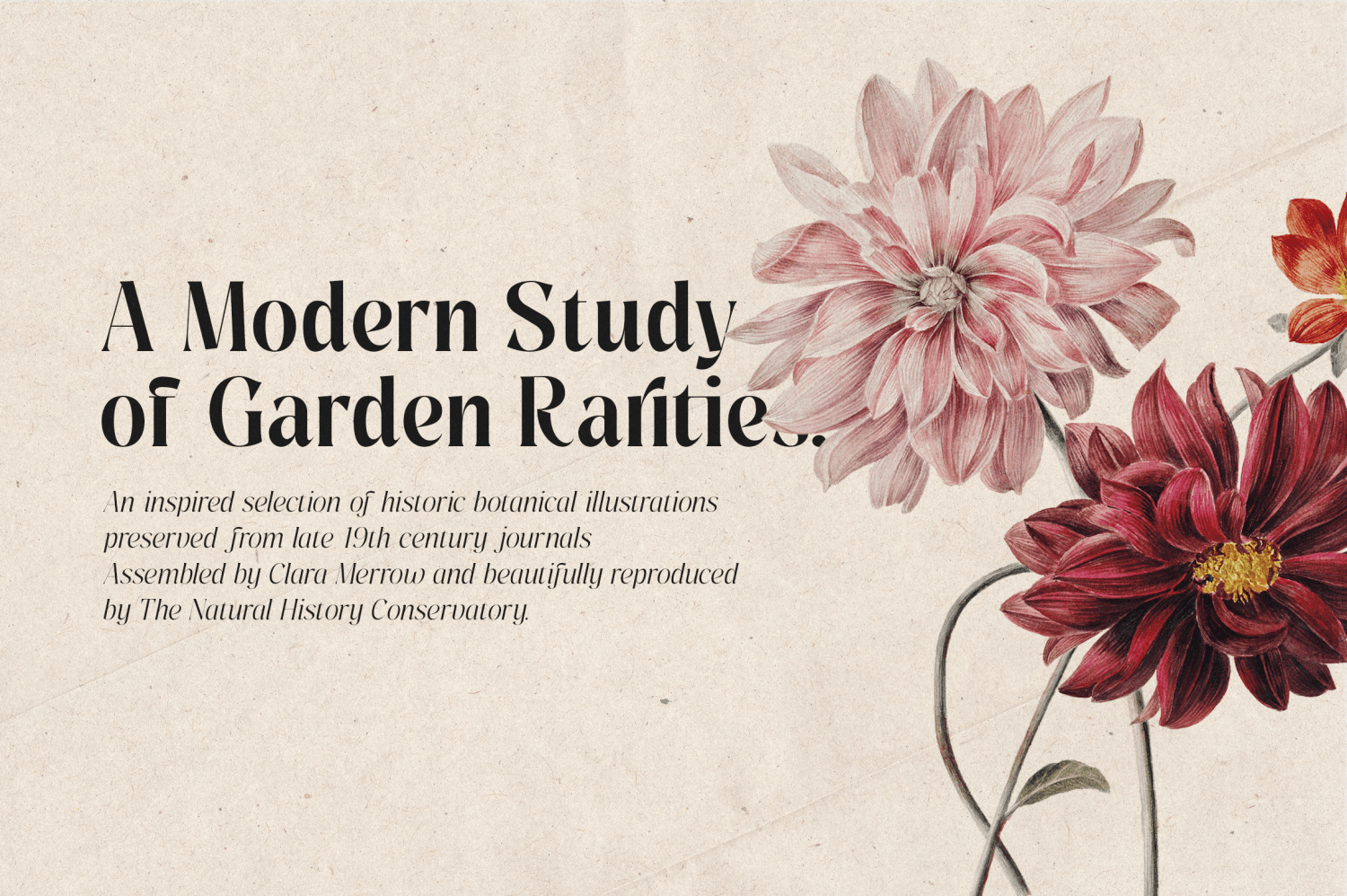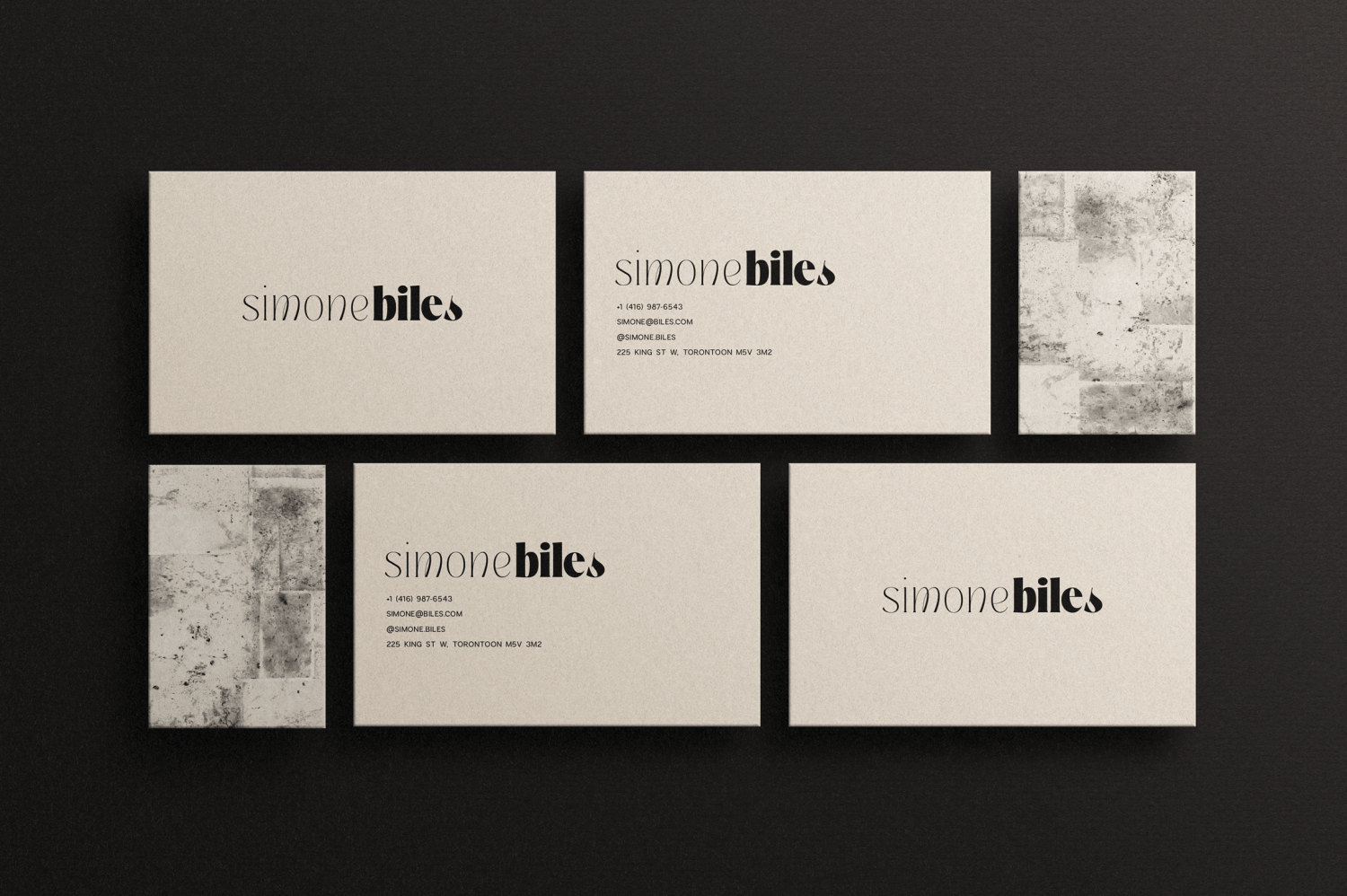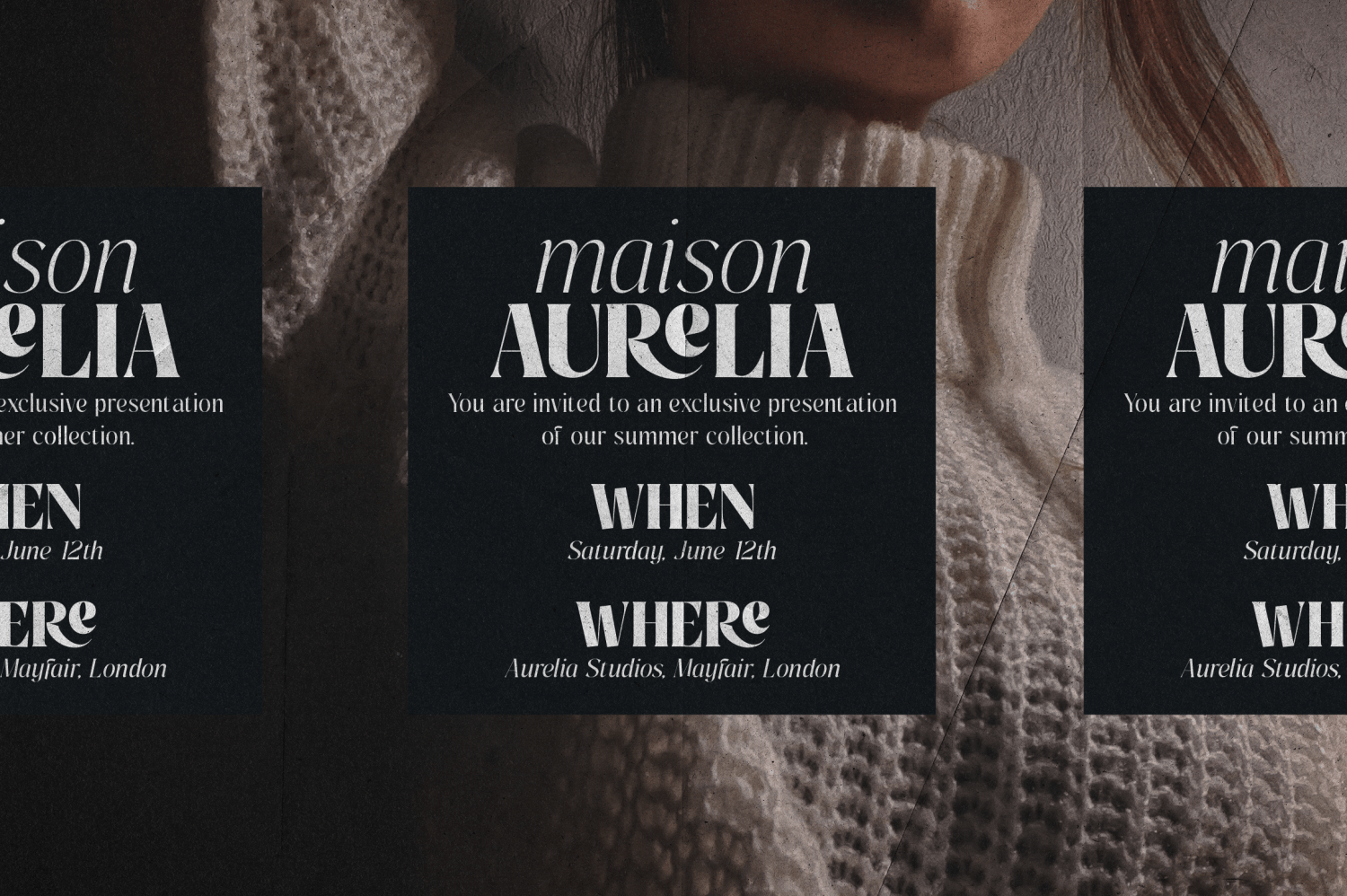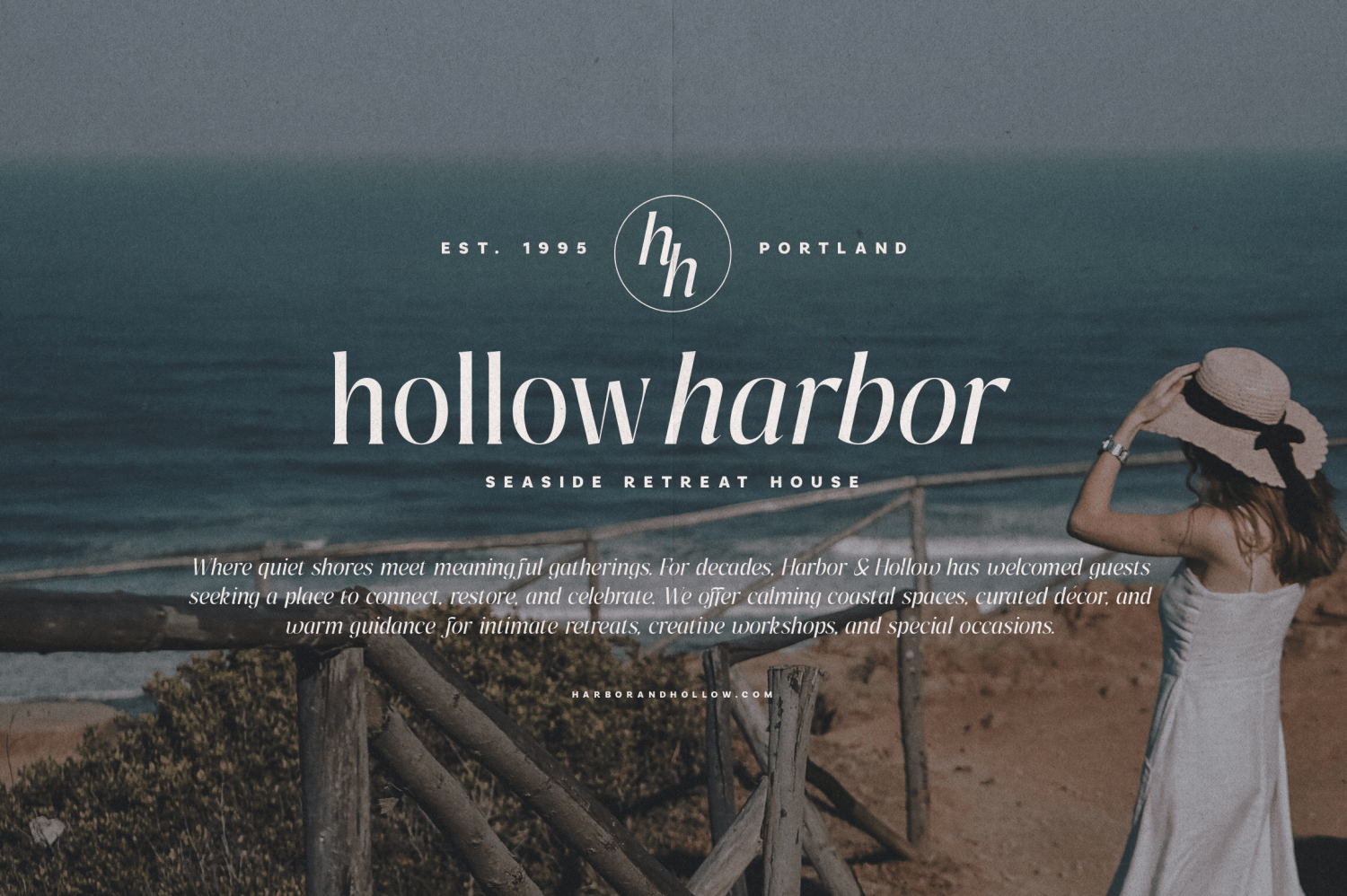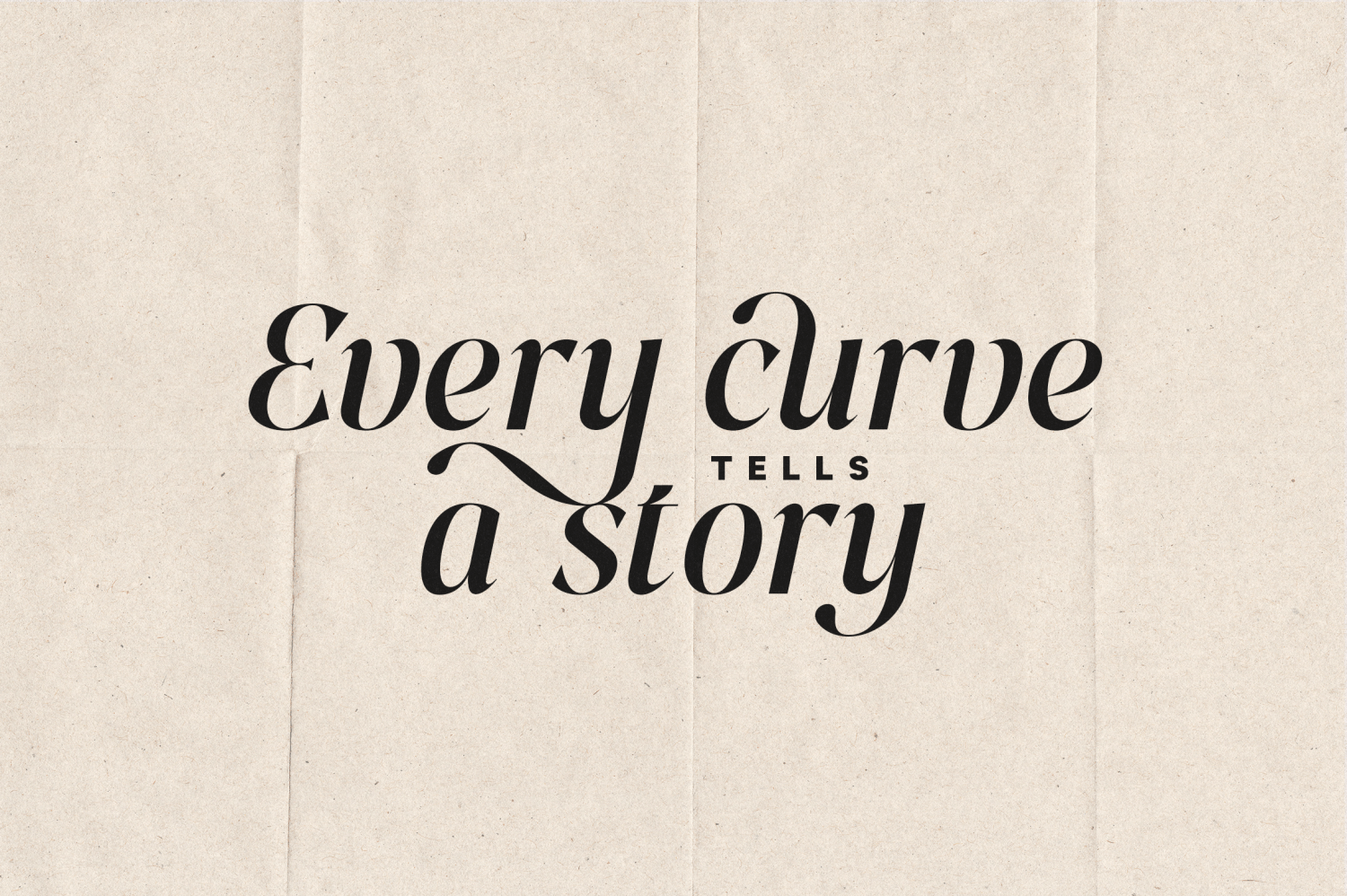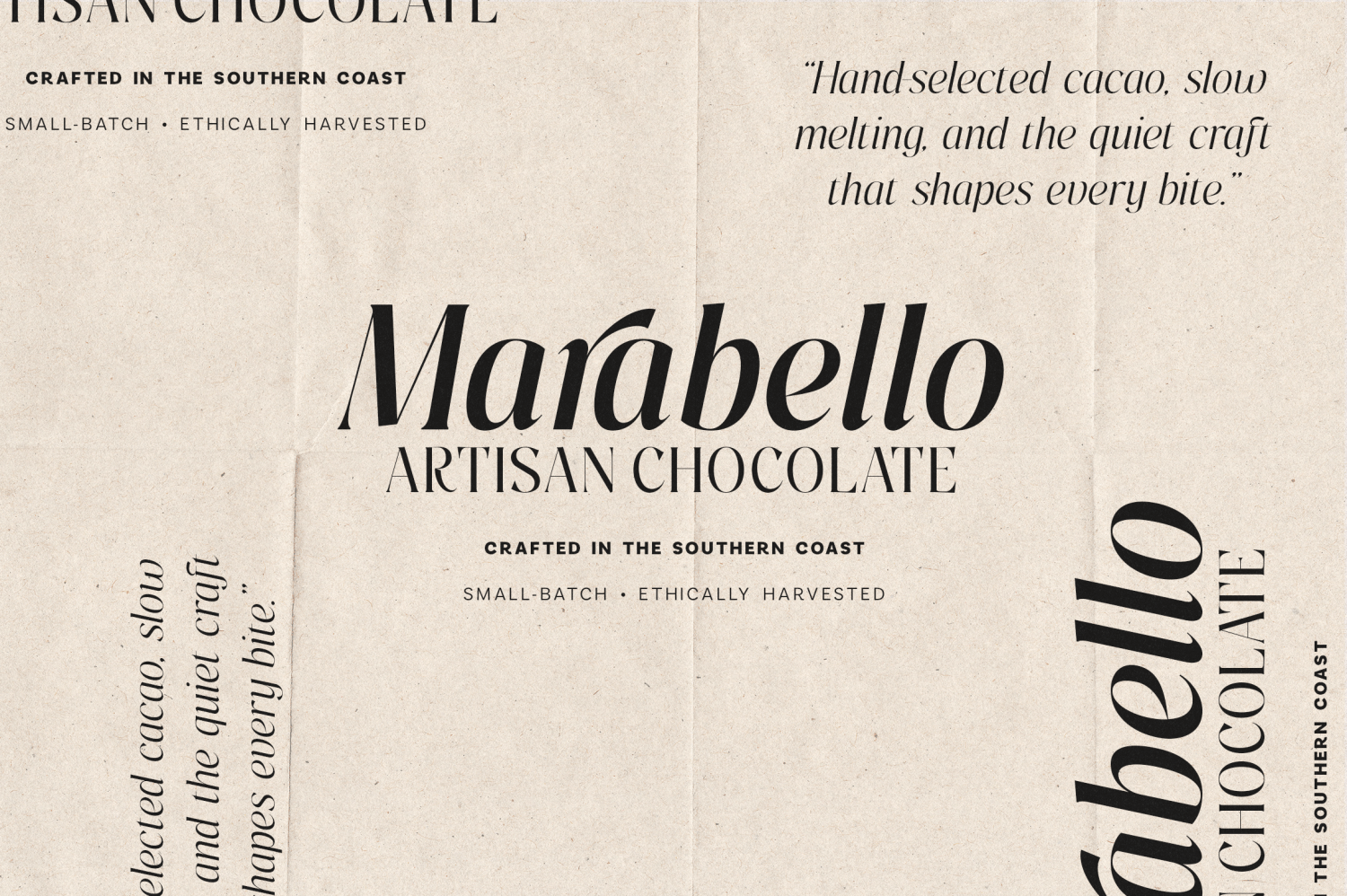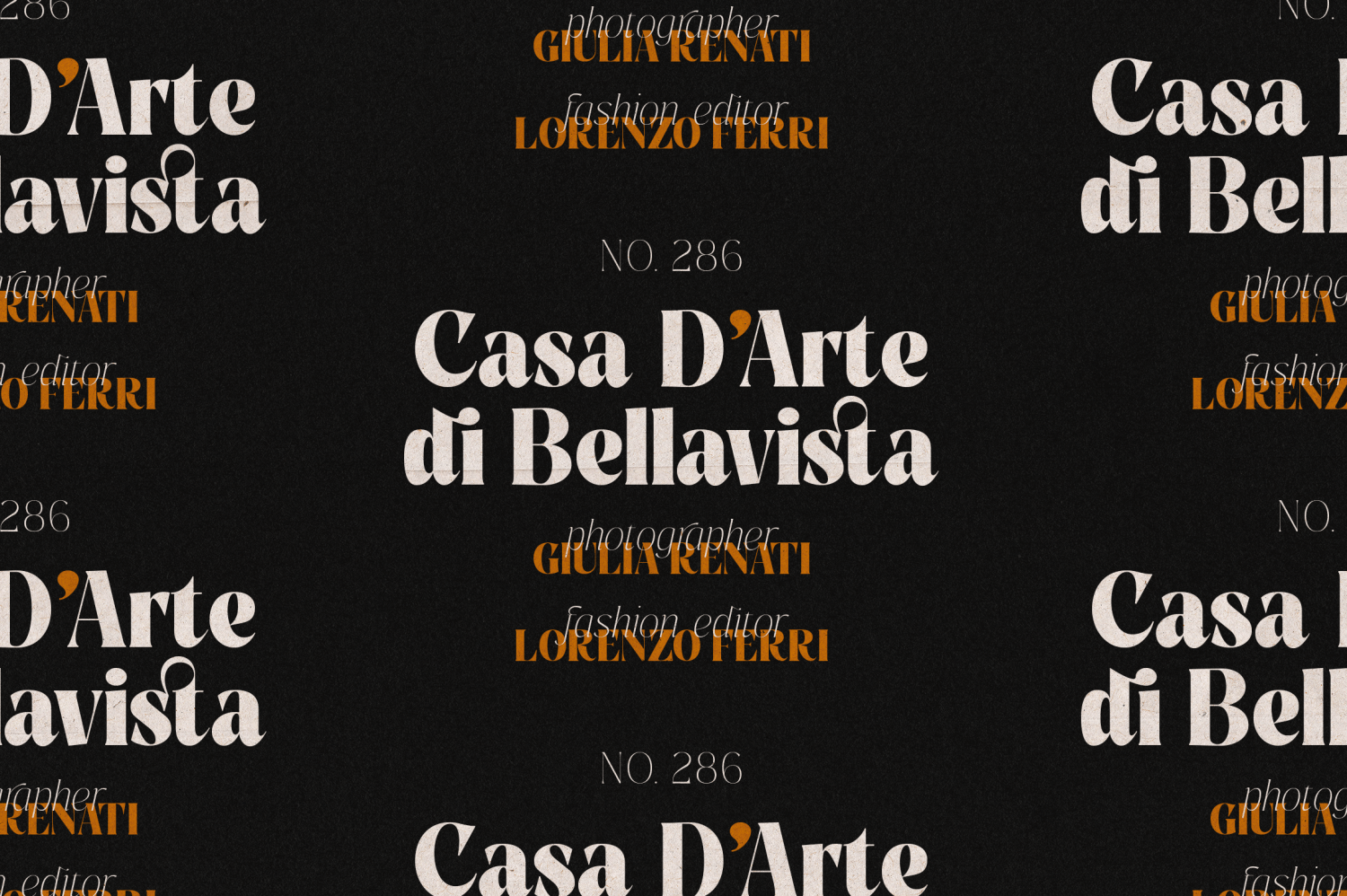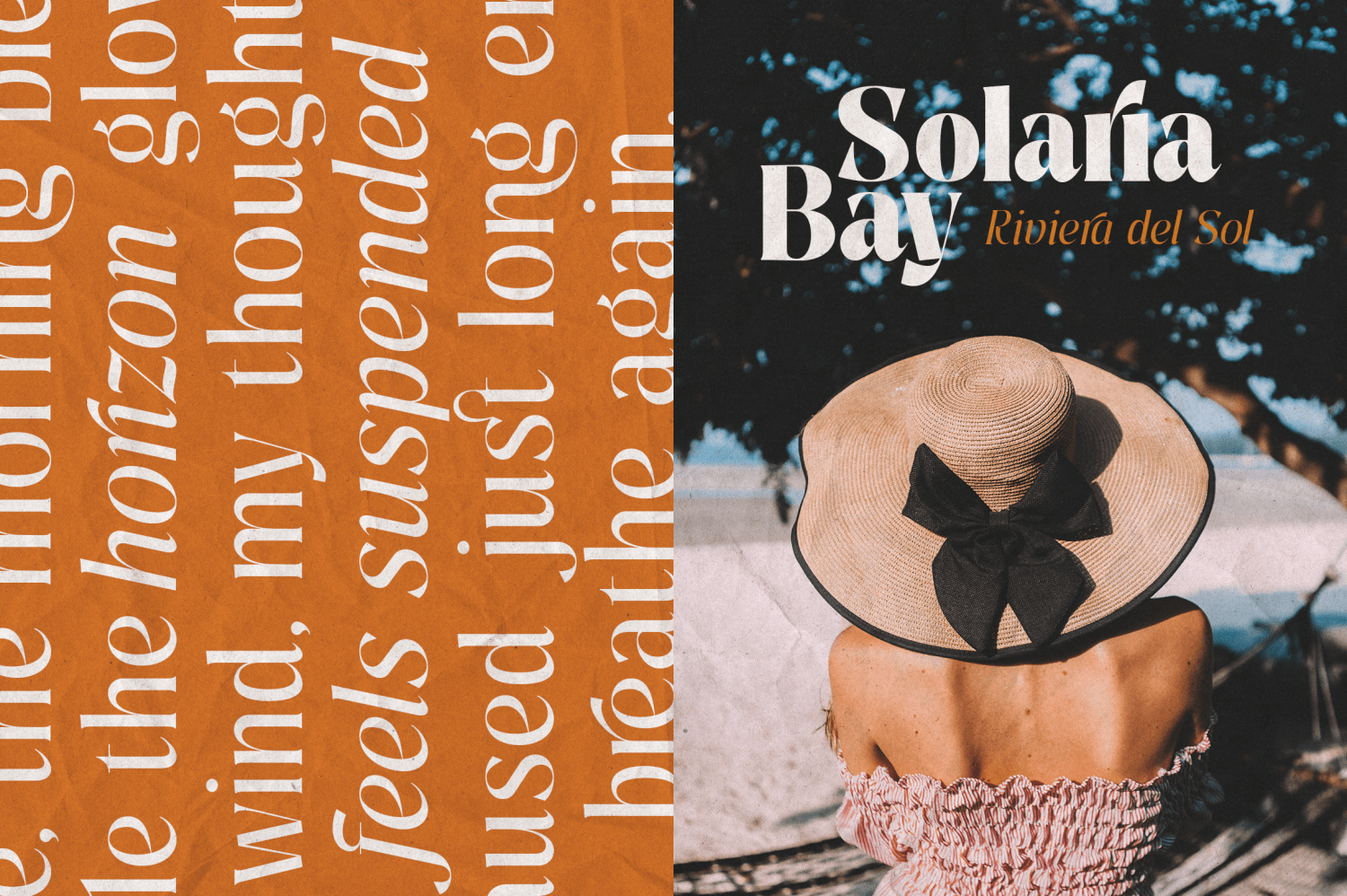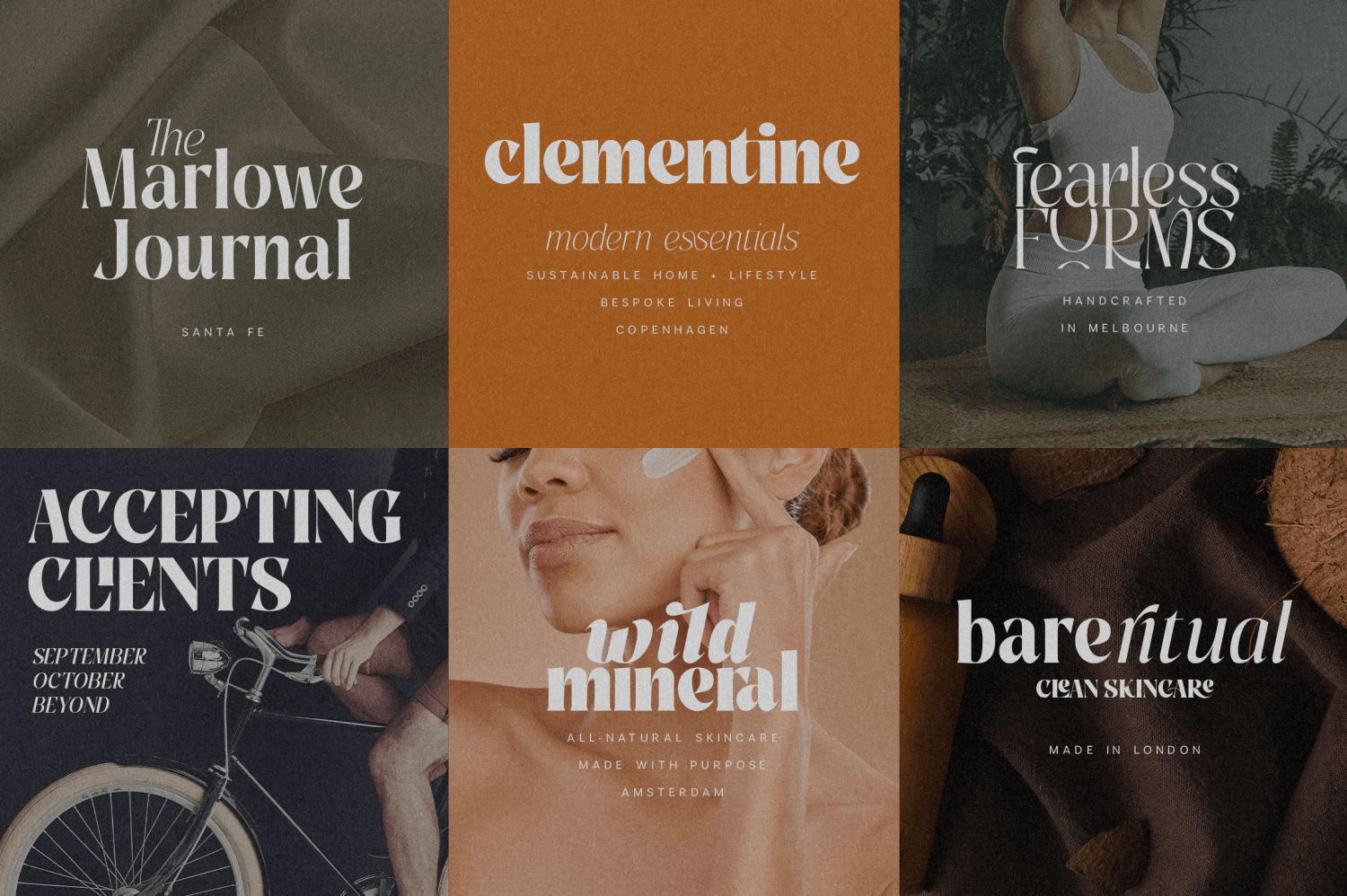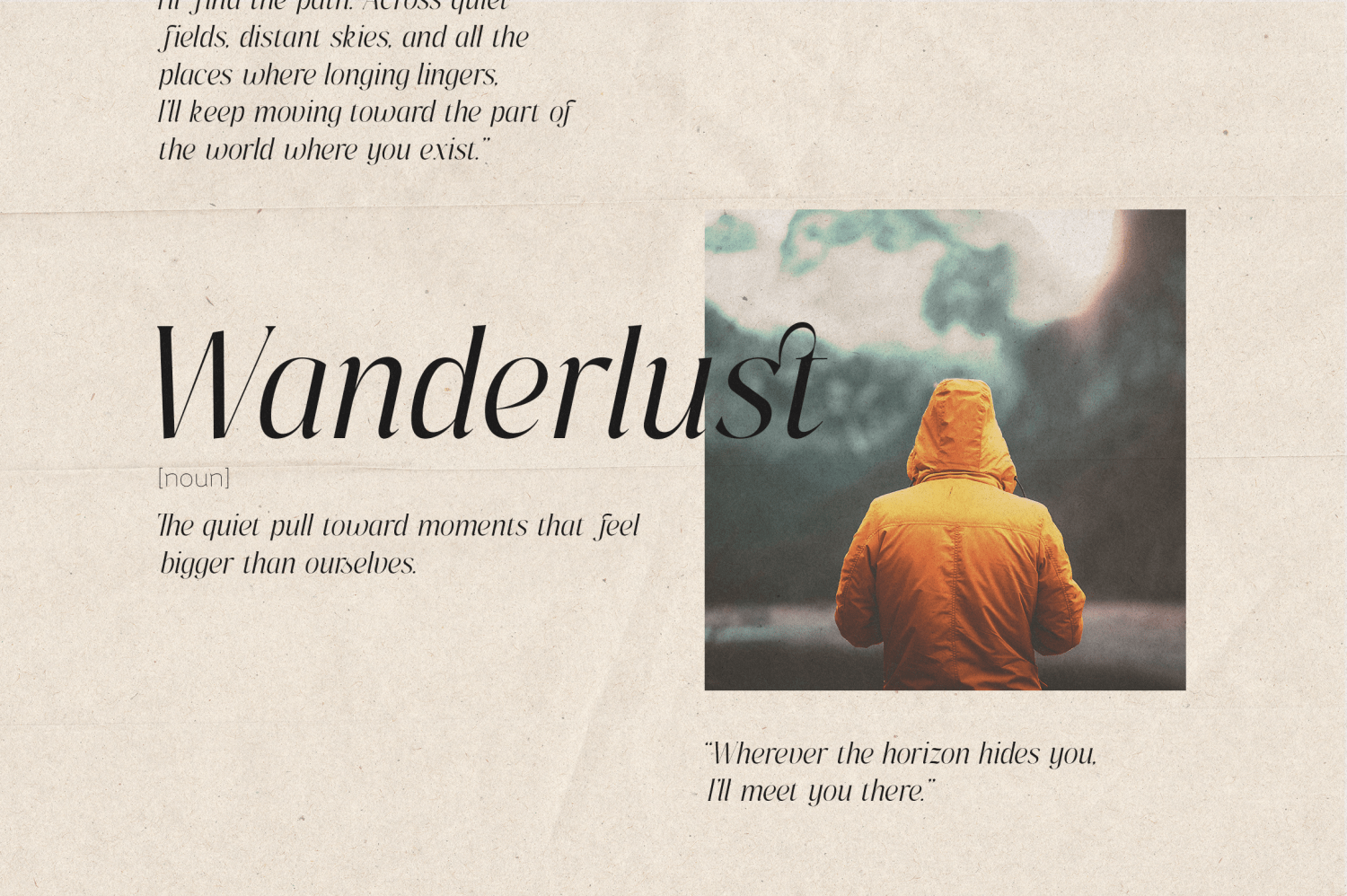
Pure Motif
Pure Motif is a refined serif family that blends classic craftsmanship with contemporary artistry - designed for creators who crave sophistication, emotional impact, and timeless beauty in every letterform.
Born from graceful contrasts, fluid curves, and sculpted terminals, Pure Motif elevates even the simplest word into a visual statement. Its voice is elegant yet daring, soft yet authoritative - making it the perfect typographic companion for premium brands, editorial storytelling, high-end packaging, and expressive lifestyle design.
From delicate thin cuts to confident bold weights, Pure Motif’s versatility allows it to shift effortlessly between romantic, modern, luxurious, artisanal, editorial, and fashion-forward aesthetics.
A Typeface Made to Captivate
Pure Motif features a unique balance of sharp structure and calligraphic motion - creating a rhythm that feels human, warm, and distinctly memorable. Each character is drawn with intention, echoing the nuances of old-world lettering while embracing the sleek precision of contemporary design.
With its signature alternates, artistic ligatures, and carefully shaped italics, Pure Motif invites you to craft typography that feels personal, expressive, and beautifully styled.
It’s not just a font - it’s a visual language.
Perfect For
- Luxury branding & boutique identities
- Editorial layouts & magazine design
- Beauty & skincare packaging
- Fashion campaigns & lookbooks
- Artisanal products & gourmet labels
- Invitations, stationery, and print ephemera
- Social media storytelling & premium visuals
- Lifestyle, travel, and wellness brands
Pure Motif brings narrative depth and refined emotion to every touchpoint.
- Matching true Italics — expressive & gracefully slanted
- Extensive Alternates for added stylistic flair
- Signature Ligatures to create fluid, bespoke wordmarks
Whether you’re crafting a luxury fragrance label, a calm wellness identity, a boutique hotel brand, or a poetic editorial spread — Pure Motif becomes an essential design voice.
Crafted With Heart, Precision & Purpose
Pure Motif was meticulously drawn over weeks of refinement — shaping elegant contrasts, looping strokes, and emotive forms that carry a quiet sense of artistry. Every detail is intentional, allowing designers to create work that feels elevated, soulful, and unforgettable.
The result is a type family that stands out confidently in the crowded world of modern serifs. Let Your Story Take Shape
If your work asks for elegance with personality, beauty with strength, or sophistication with a touch of whimsy — Pure Motif is ready to become your signature typeface.
Transform your typography. Create with emotion. Make something unforgettable.